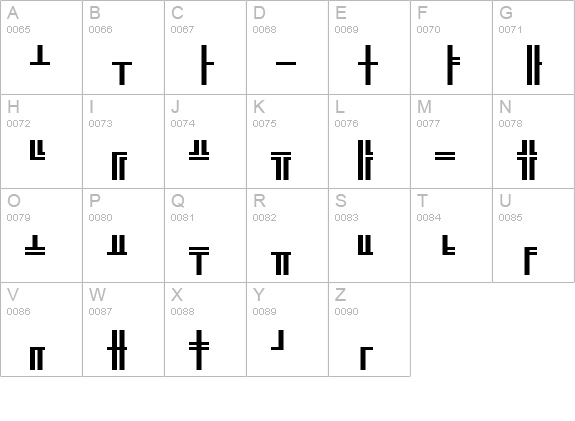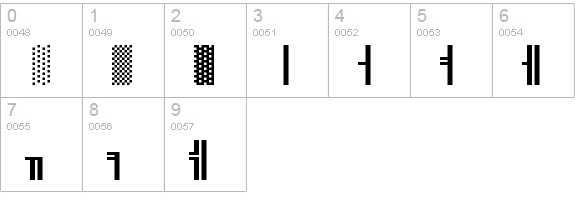
Video Terminal Screen Box Chars Font Details
Introducing Video Terminal Screen Box Chars font, a stunning typographic masterpiece designed to bring a nostalgic touch to your digital creations. This unique font pays homage to the retro video game era, where pixelated graphics ruled the screen. With its distinct box-shaped characters reminiscent of classic arcade games, Video Terminal Screen Box Chars font captures the essence of vintage technology, making it the perfect choice for any project that aims to evoke a sense of nostalgia. Whether you're designing a gaming website, creating a retro-inspired poster, or simply want to add a touch of old-school charm to your digital artwork, this font is sure to impress. Video Terminal Screen Box Chars font is not only visually appealing but also versatile and easy to use. Each character is carefully crafted with precision, ensuring seamless integration into your designs. The generous letter spacing and clean lines make it highly readable, even at smaller sizes, making it perfect for creating eye-catching headlines, titles, or logos. What's more, Video Terminal Screen Box Chars font is freely available to download at FontsMarket.com. Yes, you read that right - this amazing font can be yours at no cost. Simply visit FontsMarket.com, and with just a few clicks, you'll have access to this stunning font, ready to enhance your design projects. So why wait? Embrace the vintage charm of Video Terminal Screen Box Chars font and add a touch of nostalgia to your creative endeavors. Download it for free today at FontsMarket.com and let your imagination run wild with endless possibilities.